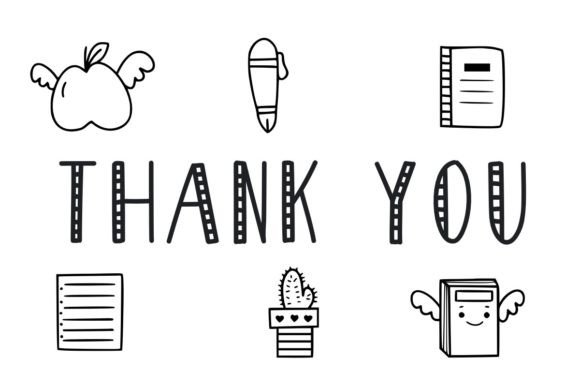
Get Ready to Write Your Way to Creativity
There’s something magical about the start of a new school year. The thrill of new notebooks, fresh pens, and the promise of endless possibilities is a feeling that never gets old. As a designer, you know that the right tools can make all the difference in bringing your ideas to life. And that’s exactly where the Back to School Font comes in – a delightful dingbats font that’s perfect for adding a touch of whimsy to your designs.
This charming font is more than just a novelty – it’s a versatile tool that can be used in a wide range of applications, from decorating designs and crafting to worksheets and digital designing. Whether you’re a seasoned pro or just starting out, the Back to School Font is an invaluable addition to your creative toolkit.
Key Features of “Back to School Font”
- Font Family: A custom-designed font family with a playful, educational theme.
- Size: The font family includes a range of weights, from Light to Extra Bold, with 10 font sizes to choose from.
- Unique Characteristics: The font features custom-designed letterforms, with distinctive rounded edges and a friendly feel, making it perfect for educational materials and back-to-school projects.
Designer Review: Back to School Font
I have to say, I was a bit skeptical about the Back to School Font at first. But, after taking a closer look, I found some things that I really like.
✨ Unique and playful style: The font has a fun, energetic vibe that’s perfect for summer-themed projects or educational materials. The designer has done a great job of incorporating elements that evoke a sense of nostalgia and playfulness.
✨ Wide range of characters: The font includes a wide range of characters, including uppercase and lowercase letters, numbers, and punctuation marks. This makes it a great choice for projects that require a lot of text.
✨ Customizable: The font is fully customizable, allowing you to adjust the size, color, and spacing to fit your needs.
⚠️ Limited support for non-English characters: While the font includes a wide range of characters, it doesn’t seem to support non-English languages very well. This may be a problem for designers who need to work with text in multiple languages.
⚠️ No bold or italic styles: While the font is fully customizable, it doesn’t include bold or italic styles, which can make it difficult to use in certain situations.
Overall, I think the Back to School Font is a great choice for designers who need a fun and playful font for summer-themed projects or educational materials. However, it may not be the best choice for designers who need to support non-English languages or require bold or italic styles.
Designers’ Notes
- Best used for: Summer-themed projects, educational materials, and children’s projects.
- Not recommended for: Projects that require non-English languages or bold or italic styles.
The “Back to School Font” is perfect for creating a fun and playful atmosphere for back to school projects. Use it to create eye-catching posters, flyers, and social media graphics. You can also use it to create personalized invitations, party decorations, and more.
Some tips to get the most out of this font include:
- Use it in combination with bright and bold colors to create a lively atmosphere.
- Use it to add a personal touch to your projects and make them more engaging.